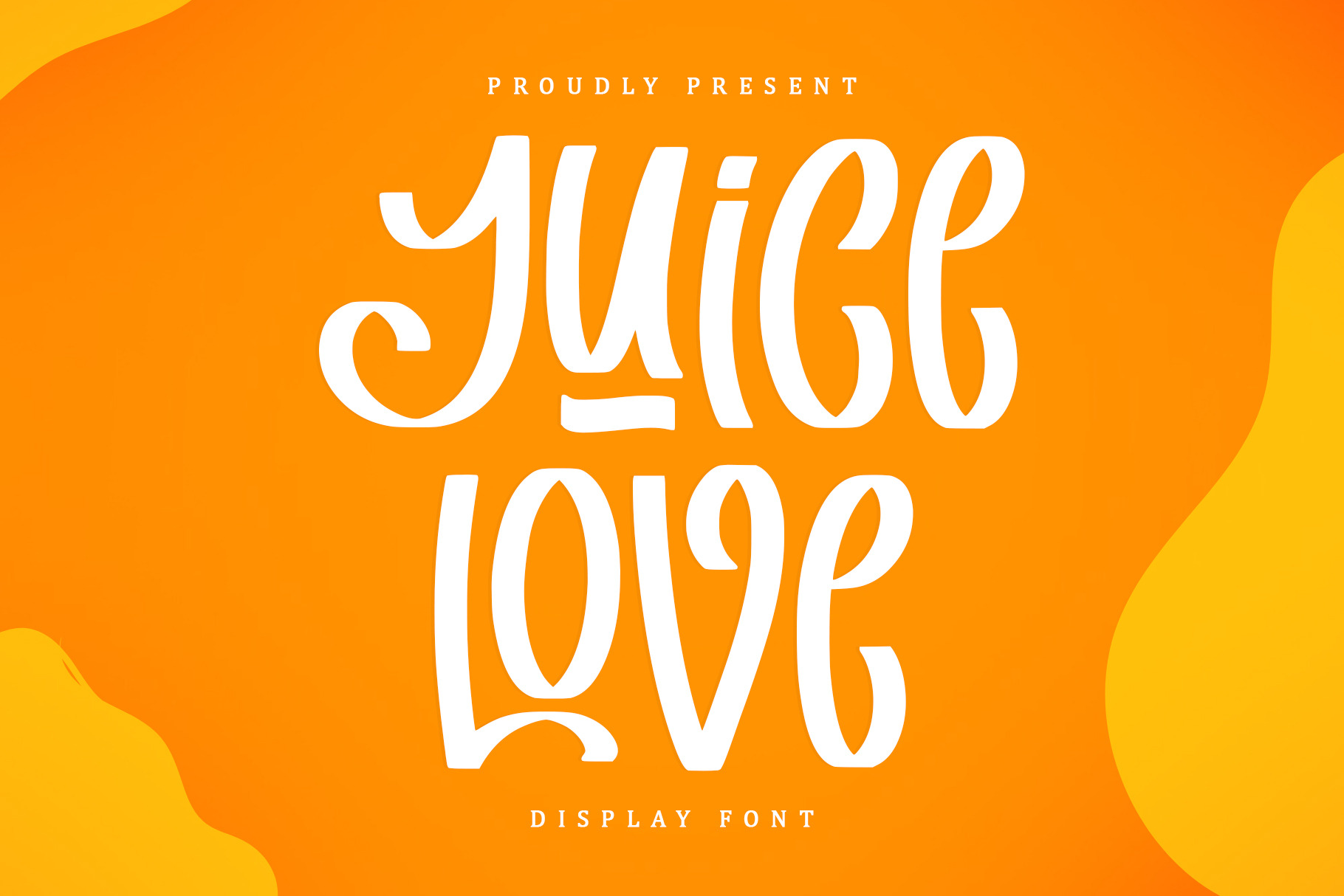
Juice Love | Display Font
Juice Love is a sweet and cursive handwritten font. This gentle font will look gorgeous on a variety of design ideas. It will add a joyful and romantic touch to each of your projects!